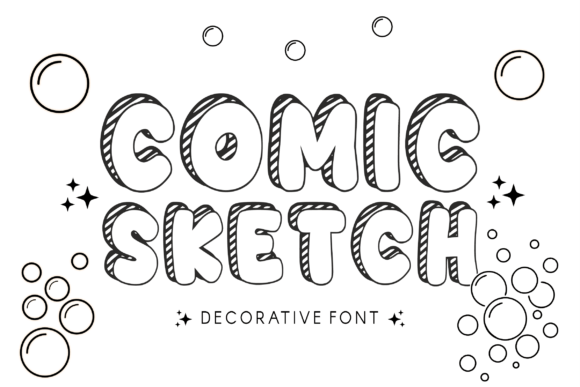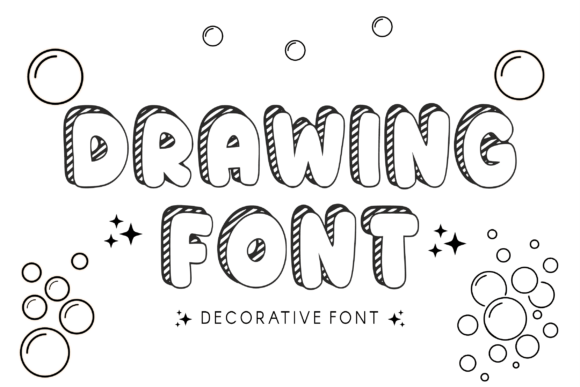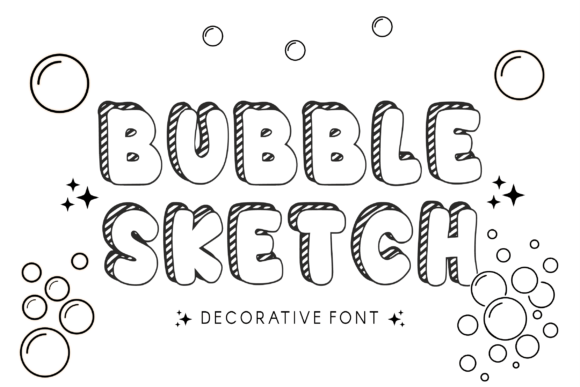
Bubble Sketch Font: Unleash Your Creativity with this Playful Typeface
Welcome to the exciting world of typography, where creativity knows no bounds! If you’re a designer, crafter, or simply a font enthusiast, you’re in for a treat. Introducing “Bubble Sketch,” a contemporary font that’s bursting with personality and ready to take your designs to the next level.
The Unique Charm of Bubble Sketch
Bubble Sketch is more than just a font – it’s a creative expression that’s been carefully crafted to add a unique sparkle to your designs. Each character has been thoughtfully tailored to bring a touch of whimsy and playfulness to your projects. Whether you’re working on a sublimation print for a t-shirt, a mug, or a tote bag, this versatile font is sure to make your designs stand out from the crowd.
Endless Applications for Designers and Crafters
One of the best things about Bubble Sketch is its extensive range of applications. This font is perfect for designers and crafters who want to add a personal touch to their work. Here are just a few ideas to get you started:
• Sublimation Prints: Create eye-catching designs for t-shirts, mugs, tote bags, and more with Bubble Sketch’s bold and playful characters.
• Comic Titles: Bring your comic books to life with animated titles that pop off the page.
• Animation: Add a touch of personality to your animations with Bubble Sketch’s unique and expressive font.
• Signs and Posters: Create attention-grabbing signs and posters that showcase your brand’s personality.
Why Designers and Crafters Love Bubble Sketch
So, what makes Bubble Sketch so special? Here are just a few reasons why designers and crafters are falling in love with this font:
• Unique and Playful: Bubble Sketch’s creative characters add a touch of whimsy to any design.
• Versatile: This font is perfect for a wide range of applications, from sublimation prints to animation.
• Easy to Read: Despite its playful nature, Bubble Sketch is surprisingly easy to read, making it perfect for designs that need to communicate a message.
• Customizable: With Bubble Sketch, you can experiment with different colors, textures, and effects to make your designs truly unique.
Unleash Your Imagination with Bubble Sketch
Bubble Sketch is more than just a font – it’s a canvas waiting for your creativity. With this versatile and playful typeface, the possibilities are endless. Whether you’re a seasoned designer or a crafter just starting out, Bubble Sketch is the perfect tool to help you bring your ideas to life.
Get Ready to Make a Statement with Bubble Sketch
In a world where design is all about standing out from the crowd, Bubble Sketch is the perfect font to help you make a statement. Its unique charm and playful personality are sure to capture the attention of your audience and leave a lasting impression.
In conclusion, Bubble Sketch is a game-changing font that’s sure to revolutionize the way you approach design. With its unique charm, versatility, and playfulness, this font is perfect for designers and crafters who want to add a personal touch to their work. So why wait? Dive into the exciting world of typography with Bubble Sketch and unleash your creativity today!